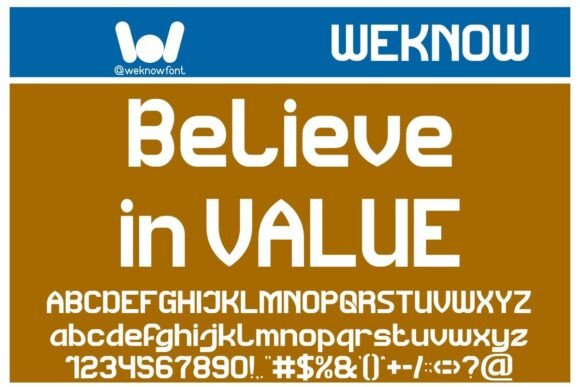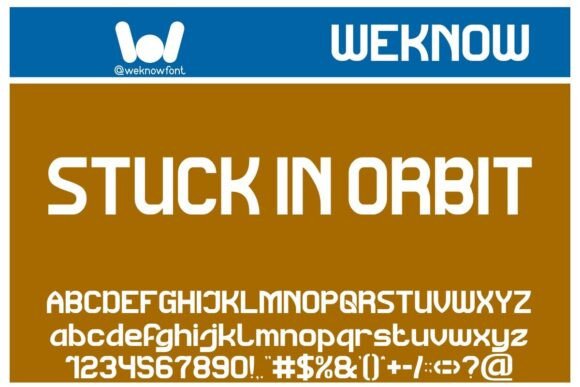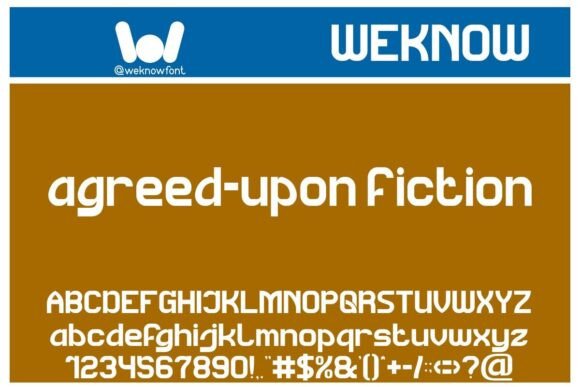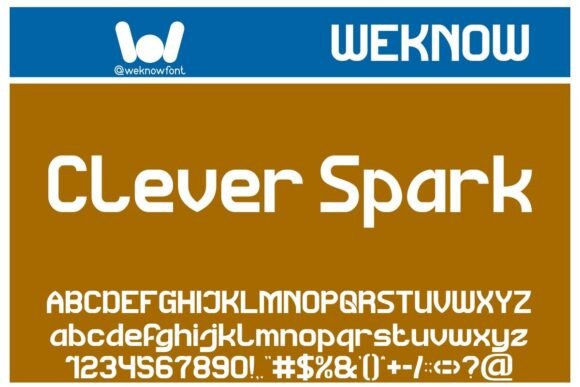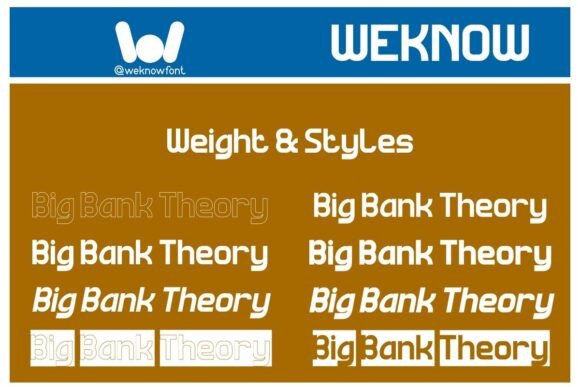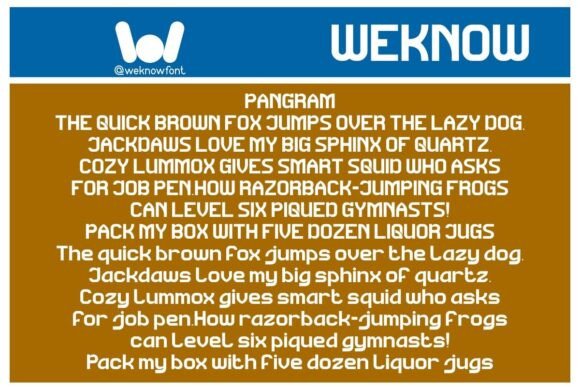
Introducing Big Bank Theory: The Ultimate Playful Sans Serif Font
Are you tired of using the same old fonts in your designs? Look no further! Big Bank Theory is here to revolutionize your creative projects with its bold, playful, and fun aesthetic. This sans serif font is perfect for designers and crafters who want to add a splash of creativity to their work.
The Perfect Font for High-Impact Headlines
Big Bank Theory is designed to make a statement. Its bold and playful style makes it an ideal match for high-impact headlines that demand attention. Whether you’re designing a poster, crafting a book, or developing a game, this font is sure to grab the spotlight. Its versatility is unmatched, allowing you to use it in a variety of contexts, from corporate branding to entertainment media.
A Signature Identity for Logos and Logotypes
Big Bank Theory’s distinct style stamps a signature identity on logos and logotypes, making it perfect for businesses and brands looking to establish a strong visual presence. Its unique aesthetic sets it apart from other fonts, ensuring that your brand stands out from the crowd. Whether you’re building a corporate brand or designing for the fashion industry, Big Bank Theory is the perfect choice.
The possibilities with Big Bank Theory are endless. Its stunning presence makes it perfect for visual platforms like YouTube and Instagram, where bold and eye-catching graphics are essential. Additionally, its engaging appeal shines in entertainment mediums, including music, movies, comics, and cartoons. The only limit is your creativity, and with Big Bank Theory, you can realize your design visions and imbue your projects with a memorable and engaging aesthetic.
Key Features of Big Bank Theory
• Playful sans serif font: Big Bank Theory is a fun and playful font that’s sure to add a splash of creativity to your designs.
• Bold aesthetics: Its bold style makes it perfect for high-impact headlines and attention-grabbing graphics.
• Versatile: Use Big Bank Theory in a variety of contexts, from corporate branding to entertainment media.
• Distinct style: Its unique aesthetic sets it apart from other fonts, ensuring that your brand stands out from the crowd.
• Perfect for visual platforms: Big Bank Theory is perfect for YouTube, Instagram, and other visual platforms where bold graphics are essential.
Why Choose Big Bank Theory?
Big Bank Theory is the perfect choice for designers and crafters who want to add a touch of creativity to their work. Its bold and playful style makes it ideal for high-impact headlines, while its distinct style stamps a signature identity on logos and logotypes. With Big Bank Theory, you can:
• Create memorable and engaging designs that stand out from the crowd.
• Establish a strong visual presence for your brand or business.
• Add a splash of creativity to your projects, whether you’re designing for entertainment, education, or corporate branding.
With Big Bank Theory, you can take your designs to the next level. Its versatility, bold aesthetics, and distinct style make it the perfect choice for designers and crafters who want to create memorable and engaging designs. So why wait? Get ready to elevate your designs with Big Bank Theory, the ultimate playful sans serif font.
In conclusion, Big Bank Theory is a game-changing font that’s perfect for designers and crafters who want to add a touch of creativity to their work. Its bold and playful style, versatility, and distinct aesthetic make it an ideal match for high-impact headlines, logos, and logotypes. Whether you’re designing for entertainment, education, or corporate branding, Big Bank Theory is the perfect choice. So why wait? Try Big Bank Theory today and elevate your designs to new heights!